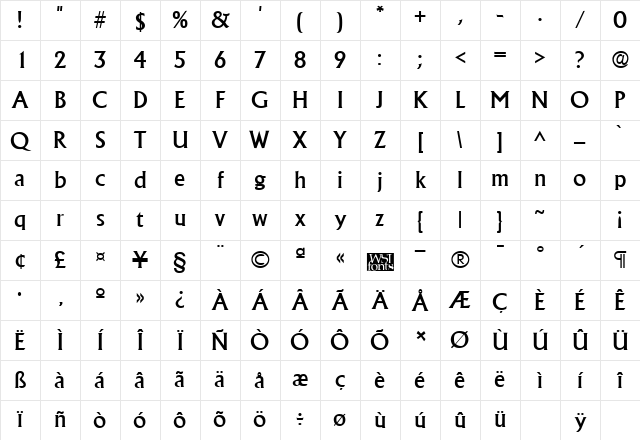
Alberta Regular Free Font
Alberta Regular
Alberta Family
Alberta Regular
Design Context for Alberta
Alberta is a composed and adaptable typeface that performs quietly and consistently across a wide range of design contexts.